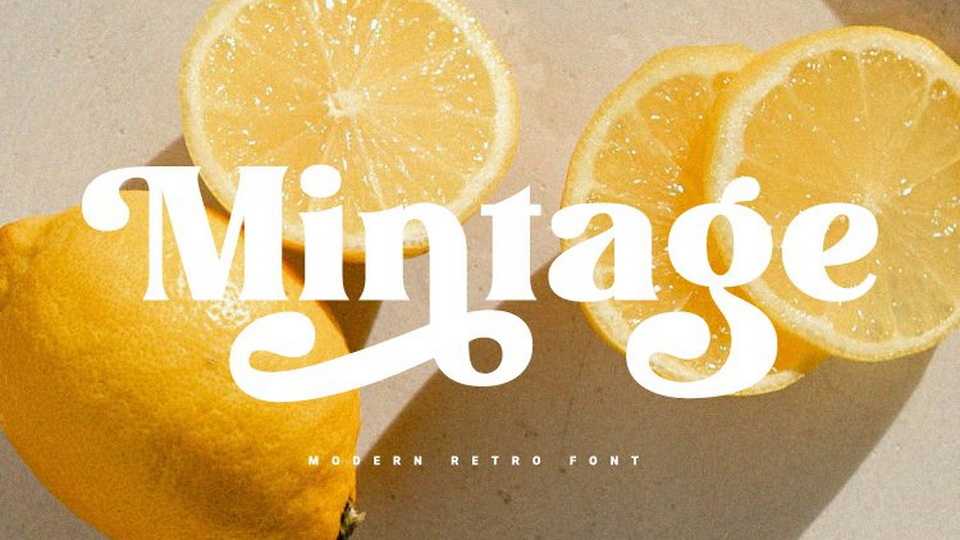
Download Mintage font, a retro inspired typeface with a modern appearance. Mintage font is great for social media post designs, branding, merchandise, posters etc.